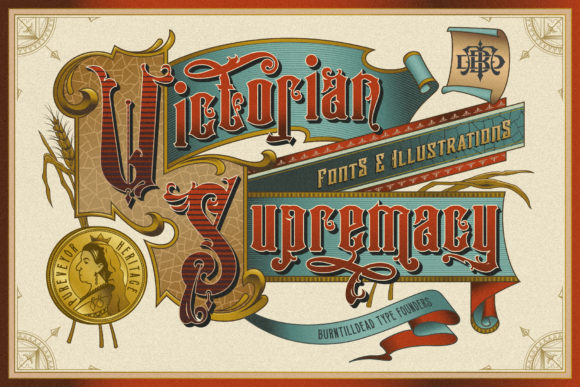
Adorn your designs with Victorian Supremacy, the serif font that exudes an enchanting vintage charm like no other. Step back in time and embrace the nostalgic elegance of this font, meticulously crafted to evoke a sense of timeless sophistication. Unleash your imagination and let Victorian Supremacy elevate your designs to new heights of splendor.
Victorian Supremacy is more than just a font; it's a gateway to a bygone era, where intricate details and timeless aesthetics reigned supreme. Its graceful curves and distinct serifs add a touch of playful nostalgia to any project, whether it's a captivating logo, an alluring poster, or an unforgettable branding experience.
With Victorian Supremacy, you'll effortlessly add a touch of vintage allure to your display ads, capturing the attention of your audience and leaving a lasting impression. Its captivating presence will draw them in, inviting them to explore your products or services. Victorian Supremacy is not just a font; it's an experience that transports you to a world of timeless beauty and elegance.
Feel the creative possibilities come alive as you explore the endless applications of Victorian Supremacy. Its versatility allows it to seamlessly blend into a multitude of design styles, from classic and traditional to modern and contemporary. Whether you're designing a wedding invitation, a retro-inspired poster, or a sleek business card, Victorian Supremacy will effortlessly elevate your project with its timeless charm.
With Victorian Supremacy, you'll unlock a world of creative expression, where your imagination knows no bounds. Its captivating aesthetic will add a touch of nostalgia and elegance to your designs, making them truly unforgettable. Embrace the timeless beauty of Victorian Supremacy and let your creativity soar.